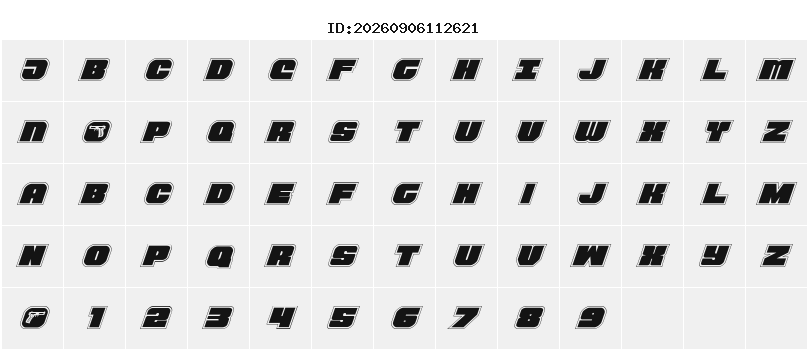
Tauro Academy Italic Preview
• Font Name: Tauro Academy Italic
• Full Font Name: Tauro Academy Italic
About Tauro Academy Italic.ttf
Tauro Academy Italic.ttf is a modern, elegant sans-serif font designed for ultimate readability and visual harmony. Perfect for branding, headlines, web design, and print materials.